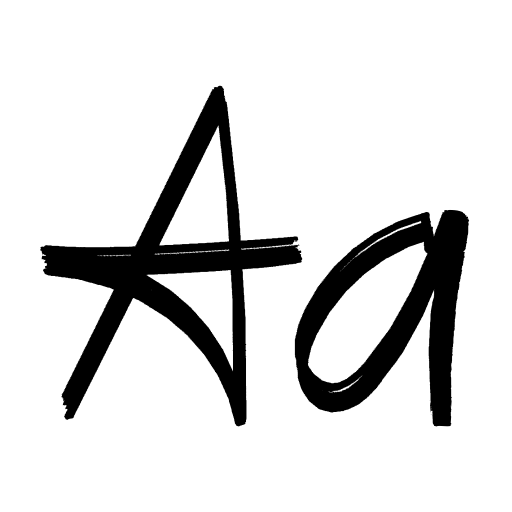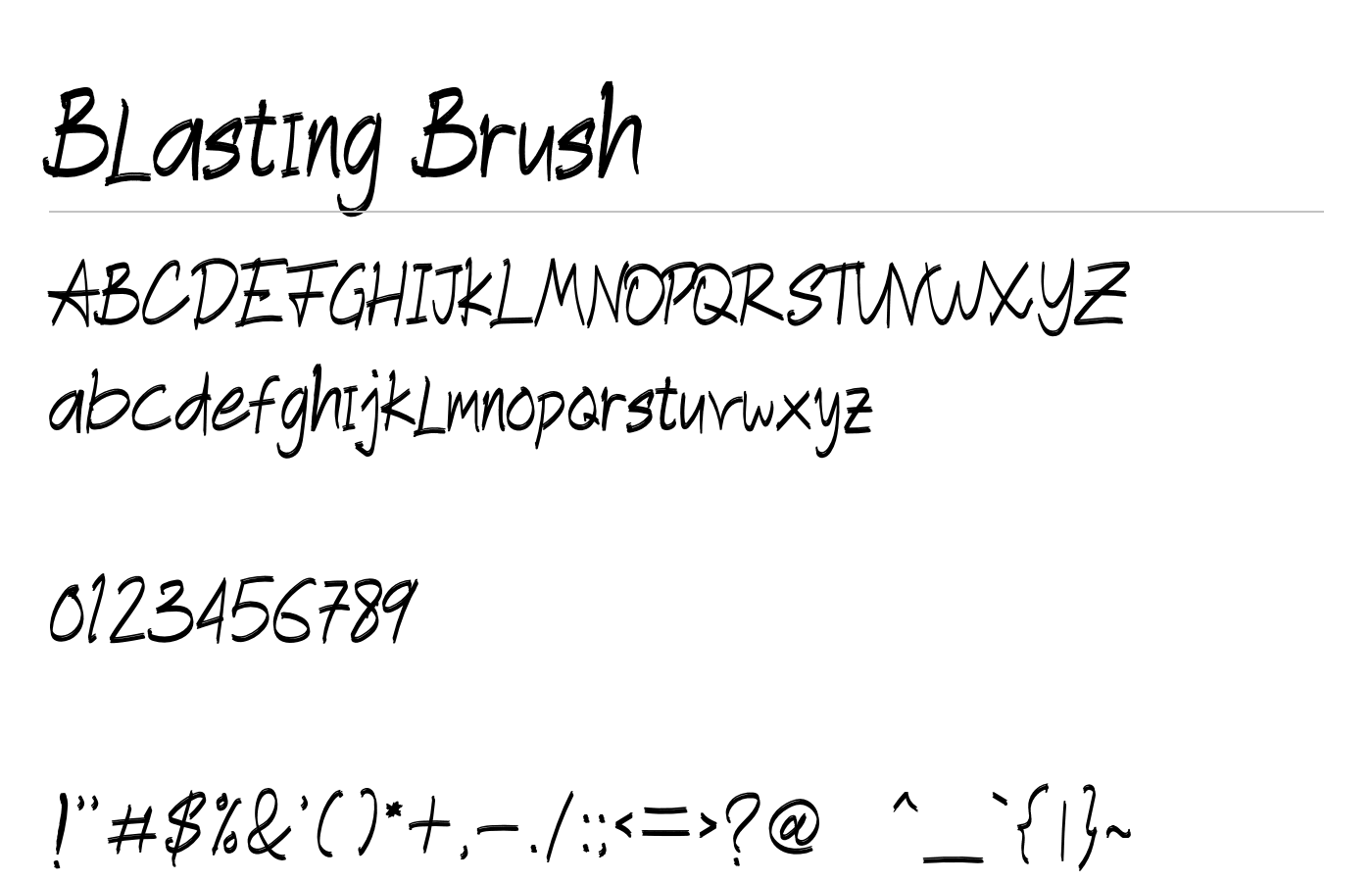
Blasting Brush is a lively and casual handwritten font that features a playful brushstroke style with irregular, energetic letterforms. Its light weight and tall, narrow shapes give it a spontaneous and creative feel, making it ideal for informal designs, art projects, and branding that wants to convey personality and approachability. This font works best in headlines, logos, and packaging where a hand-crafted, artistic touch is desired.
Blasting Brush Font
About Blasting Brush Font